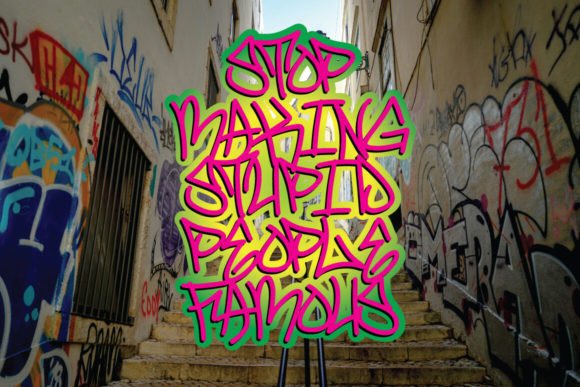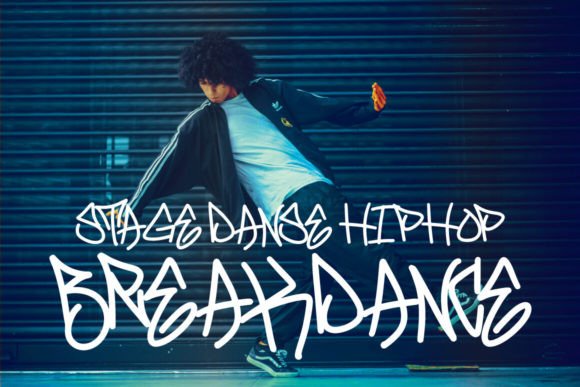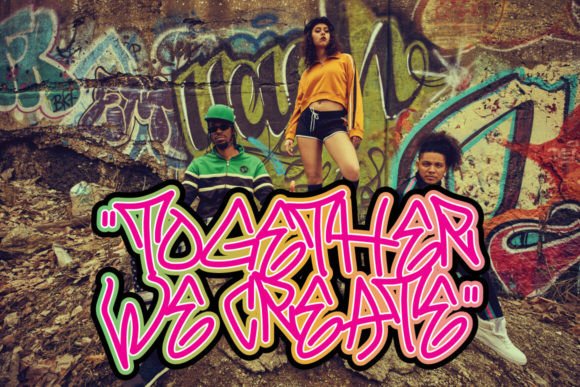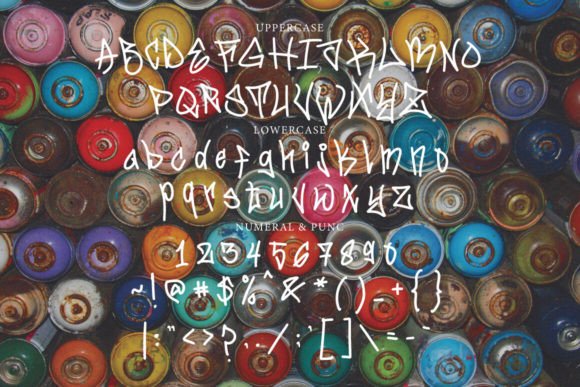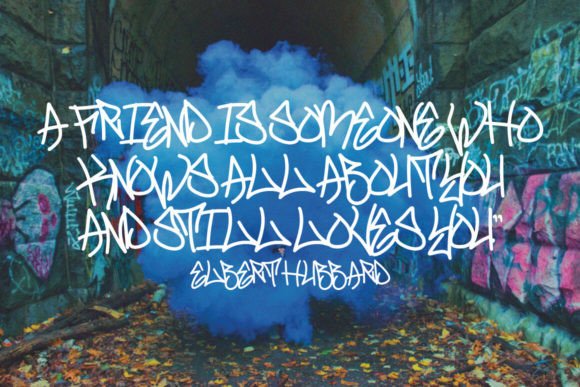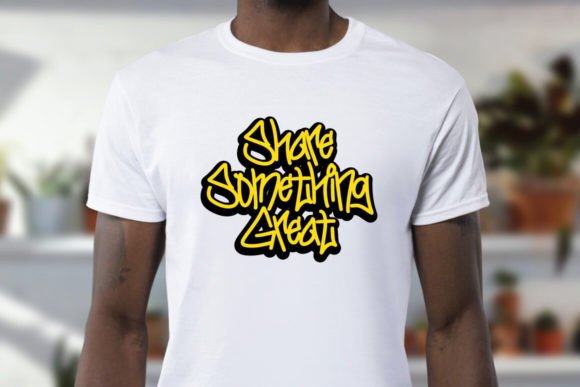
Introduction to Farmonte Font
Farmonte Graffiti Font is a display font inspired by typical street art calligraphy style or graffiti tag, suitable for your design related to it.
Also suitable for movies, documentaries, films, logos, posters, games, book covers, headlines, titles, and many more projects Add this font to your creative ideas and notice how it will make them stand out.